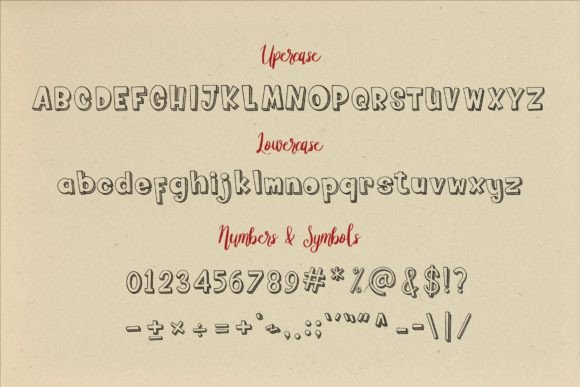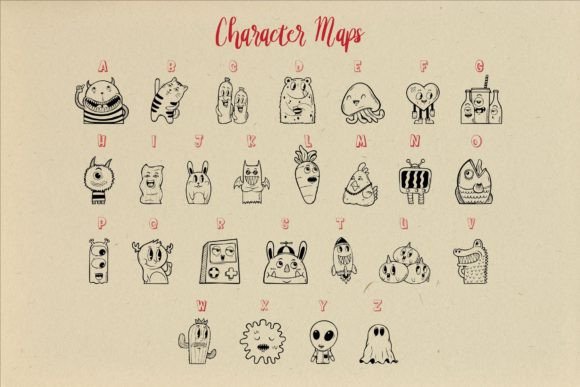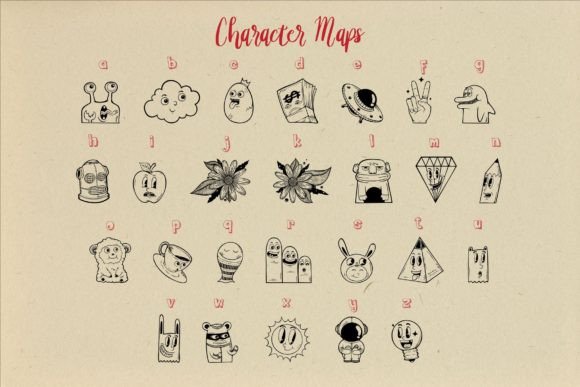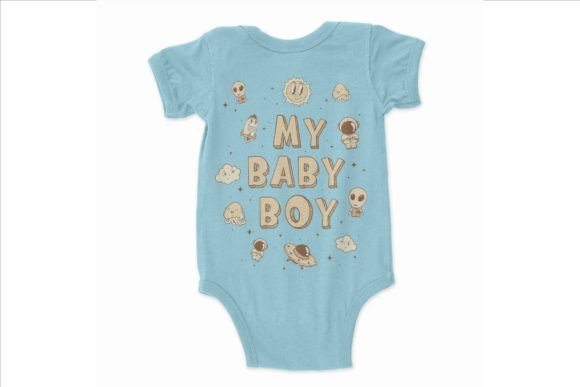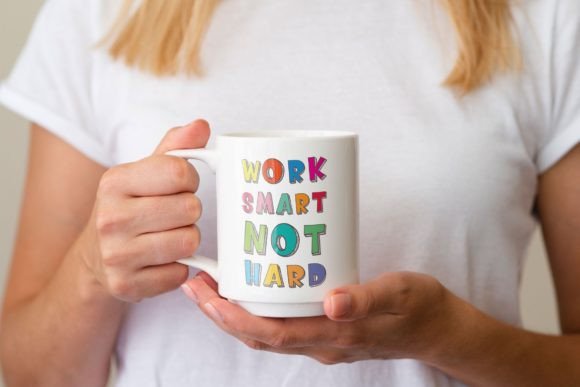
Introducing Fluffy Monsta: The Cute Doodle Font That Elevates Your Designs
Are you tired of using the same old fonts in your designs? Look no further! We’re excited to introduce Fluffy Monsta, a charming doodle font that’s sure to become a staple in your font library. With its unique blend of geometric and fancy elements, Fluffy Monsta is the perfect addition to any branding project, from logos and t-shirt printing to creative products and more.
The Versatility of Fluffy Monsta
One of the best things about Fluffy Monsta is its incredible versatility. No matter the topic or theme of your project, this font can adapt and elevate your design to new heights. Whether you’re working on a children’s book, a fashion brand, or a home decor product, Fluffy Monsta’s playful and whimsical vibe is sure to resonate with your audience.
What Makes Fluffy Monsta So Special?
So, what sets Fluffy Monsta apart from other fonts on the market? Here are just a few features that make it an incredible asset to your font library:
- Unique Doodle Style: Fluffy Monsta boasts a one-of-a-kind doodle style that’s both playful and sophisticated. Its intricate details and geometric patterns add a touch of elegance to any design.
- Geometric and Fancy Vibe: This font combines the best of both worlds, blending geometric shapes with fancy flourishes to create a truly unique look.
- Easy to Read: Despite its intricate details, Fluffy Monsta is surprisingly easy to read, making it perfect for use in a variety of applications, from headlines to body text.
- Scalable: Whether you’re working on a small business card or a large billboard, Fluffy Monsta remains clear and legible, making it the perfect choice for any project.
How to Use Fluffy Monsta in Your Designs
Now that we’ve introduced you to Fluffy Monsta, let’s talk about how to incorporate it into your designs. Here are a few ideas to get you started:
- Logos and Branding: Use Fluffy Monsta to create a unique and memorable logo that sets your brand apart from the competition.
- T-Shirt Printing: Add a touch of whimsy to your t-shirt designs with Fluffy Monsta, perfect for creating fun and quirky apparel.
- Creative Products: From stickers and washi tape to home decor and stationery, Fluffy Monsta is the perfect font for adding a personal touch to your creative products.
- Digital Designs: Use Fluffy Monsta in your digital designs, from social media graphics to website headers, to add a touch of personality and flair.
Why Designers and Crafters Love Fluffy Monsta
Fluffy Monsta has quickly become a favorite among designers and crafters, and it’s easy to see why. Here are just a few reasons why this font has captured the hearts of creatives:
- Easy to Use: Fluffy Monsta is surprisingly easy to use, even for those with limited design experience.
- Customizable: With its wide range of applications and uses, Fluffy Monsta can be customized to fit any design style or theme.
- Fun and Playful: This font adds a touch of whimsy and fun to any design, making it perfect for creatives who want to add a little personality to their work.
In conclusion, Fluffy Monsta is a game-changing font that’s sure to elevate your designs and take your creativity to the next level. With its unique doodle style, geometric and fancy vibe, and incredible versatility, this font is a must-have for any designer or crafter. So why wait? Download Fluffy Monsta today and start creating amazing designs that will leave a lasting impression on your audience!